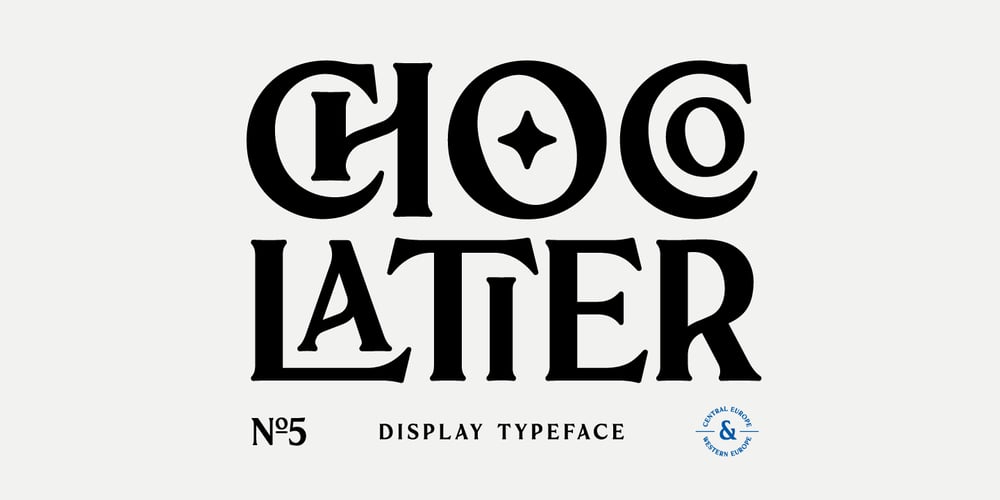
Chocolatier
Chocolatier font
Chocolatier Font Family was designed by Milan Pleva and published by Milan Pleva. Chocolatier contains 1 styles and family package options. Chocolatier is an all caps display serif typeface with soft edges. Includes ligatures, special alternative glyphs and old style figures. Chocolatier is ideal for headlines, headers, logos, labels, packaging, postcards, presentations, magazines, invitations, etc. Features:Basic latin alphabet A-Z36 Ligatures & Alternates56 Accented charactersNumbers, Punctuation, Currency, Symbols, Math symbols & DiacriticsOld style figuresEnjoy Chocolatier!